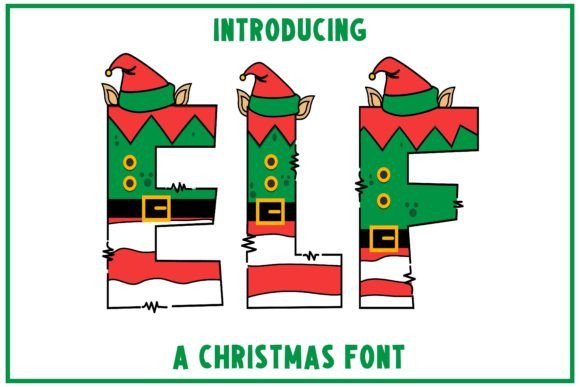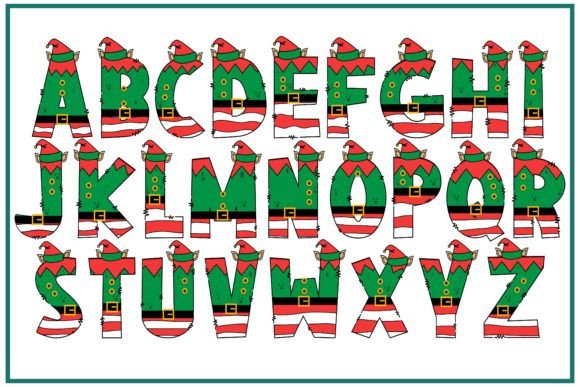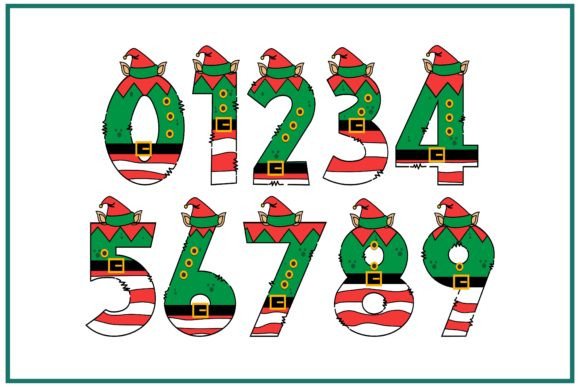
Elf Font
About Elf Font
Elf is a playful and festive color font that brings a touch of naughtiness and fun to your Christmas projects. With its unique design featuring uppercase letters adorned with elf hats, Elf font is the perfect choice for adding a whimsical and festive touch to your designs.
Whether you’re working on Christmas invitations, greeting cards, posters, or even sprucing up your holiday website, Elf font will add a delightful and cheerful element to your creations. Its combination of “naughty and nice” perfectly captures the spirit of the holiday season and brings a sense of joy and excitement.
By incorporating Elf font into your designs, you can instantly infuse them with a playful and mischievous vibe. The elf hats on the uppercase letters add a whimsical and festive twist, making your text visually interesting and captivating.
You can use Elf font in various applications and sizes, allowing you to experiment with different design elements and layouts. Whether you choose to use it for headlines, titles, or decorative accents, Elf font will make your Christmas projects stand out and grab attention.
Get creative with Elf font and let it bring the holiday cheer to your projects. Whether you’re designing for personal or professional purposes, Elf font will add a touch of whimsy and delight to your Christmas-themed designs. Let this font be a fun and festive companion for your creative endeavors during the holiday season.